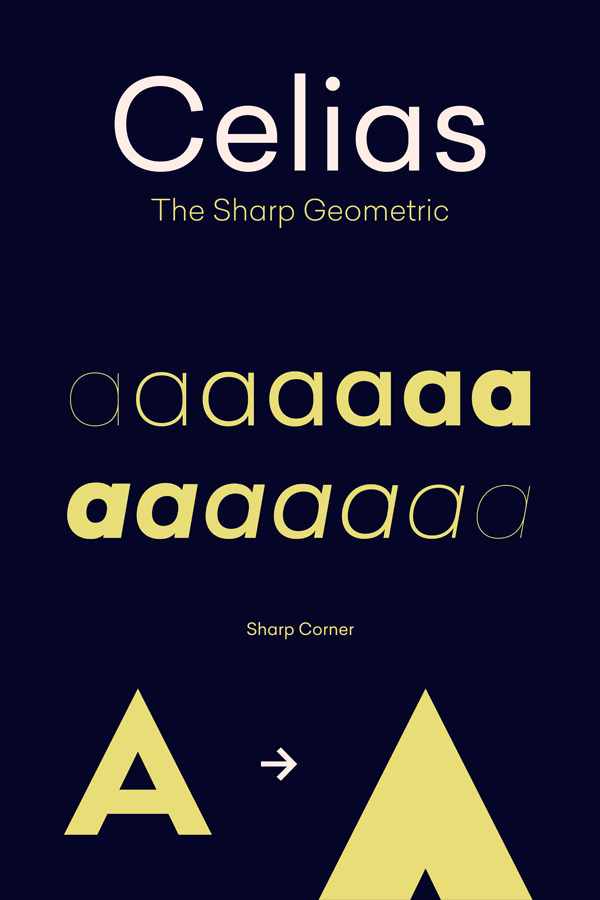
Celias – A Sharp Geometric Type Family.
Celias is a geometric font family from Type Dynamic, which consists of 7 weights (ranging from Hairline to Black) plus corresponding italics. This family offers a geometric typeface with sharp corners. Celias is packed with plenty of OpenType features such as Stylistic Alternates, Proportional Figure, Tabular Figures, Numerator, Superscript, Denominators, Scientific Inferiors, Subscript, Ordinals, Ligatures, and Fractions. Its clear shape provides good readability in every text size.